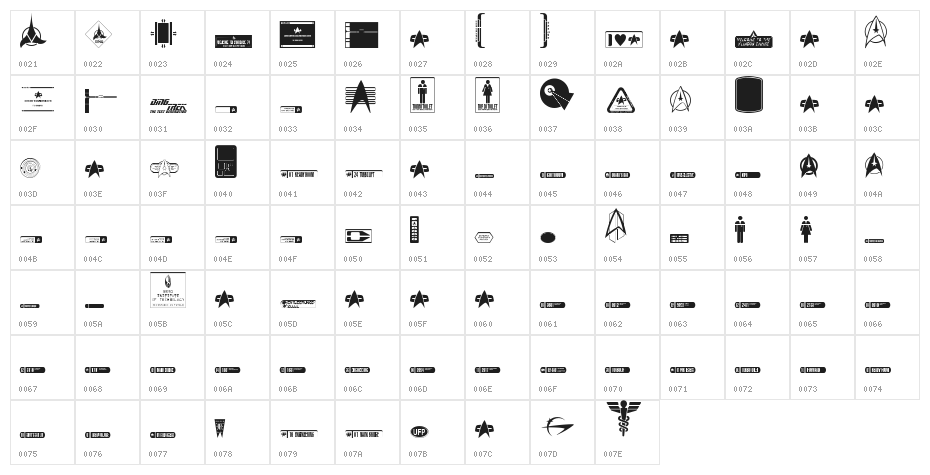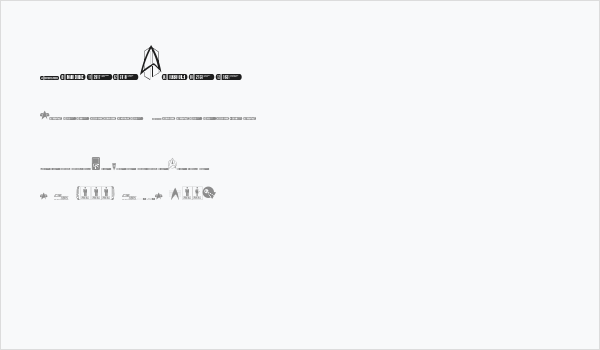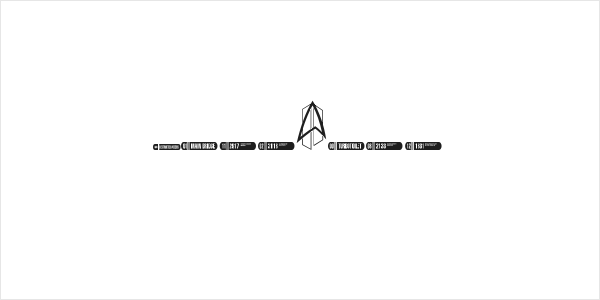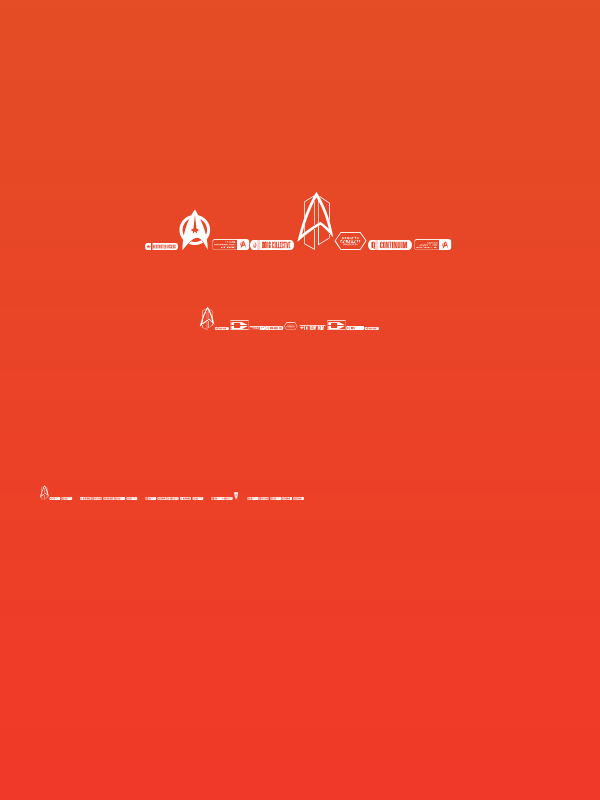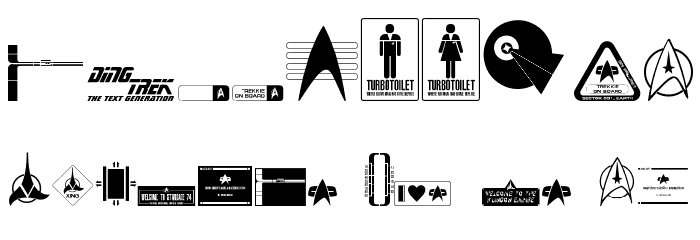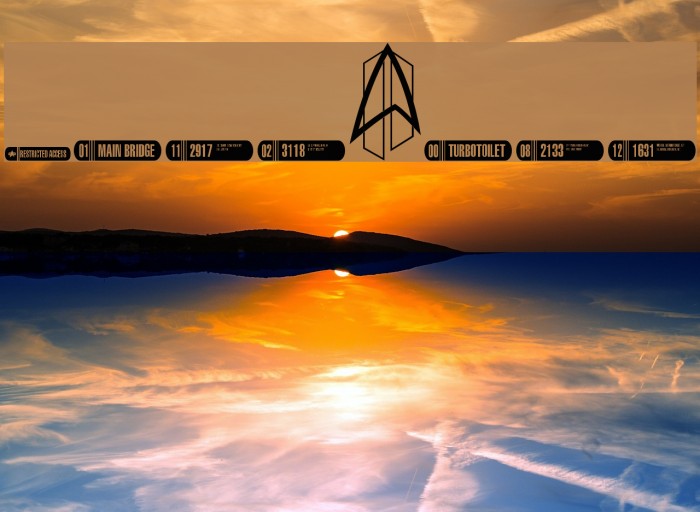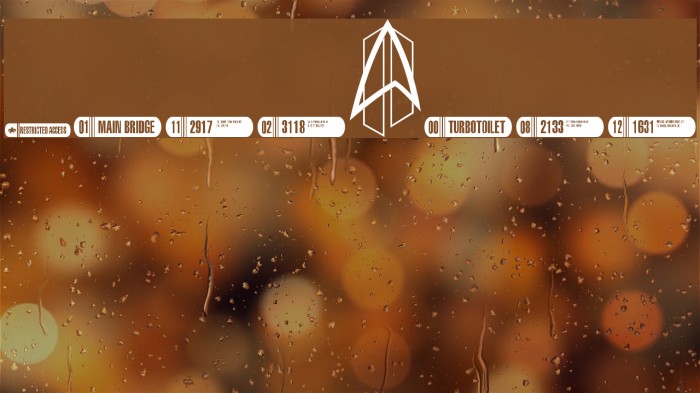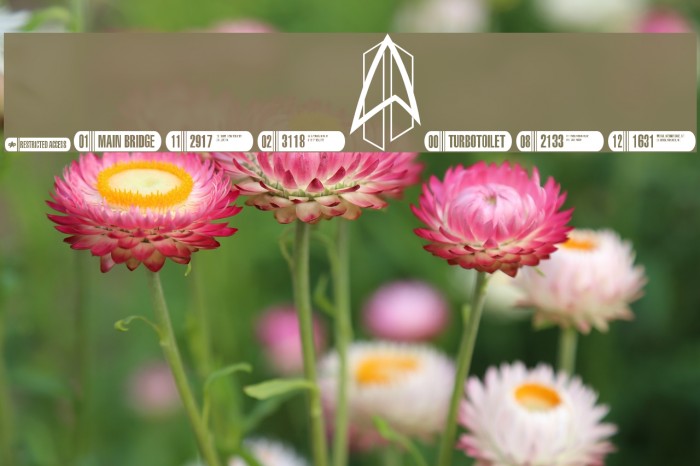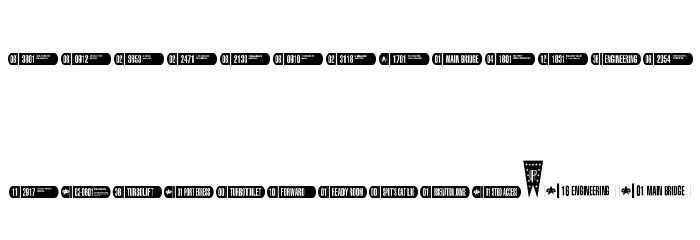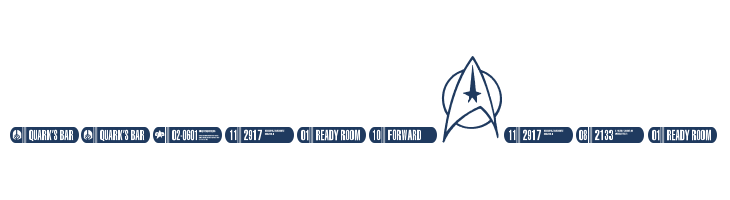
DingTrek Font
DingTrek Description
This font is a decorative and thematic collection of symbols and icons inspired by a futuristic and space-themed universe. It includes a variety of pictograms such as starship insignias, directional arrows, and signage that evoke a sense of exploration and adventure. The design is bold and graphic, with a strong emphasis on geometric shapes and clean lines. The symbols are highly stylized, making them suitable for creative projects that require a distinctive and thematic visual language.
| Overall Style | Futuristic, Decorative |
| Use Case | Logos, Themed signage, Posters |
| Proposed Projects | Ideal for use in science fiction themed designs, fan art, themed events, or any project requiring a futuristic and adventurous aesthetic. |